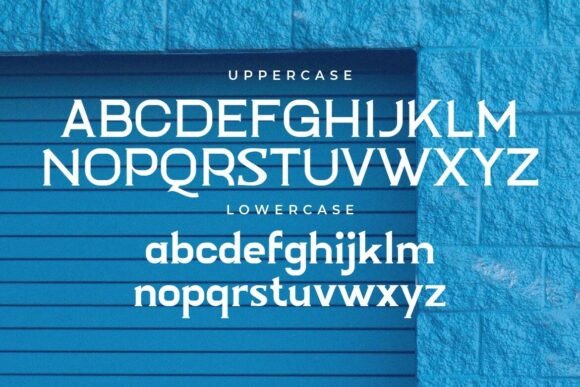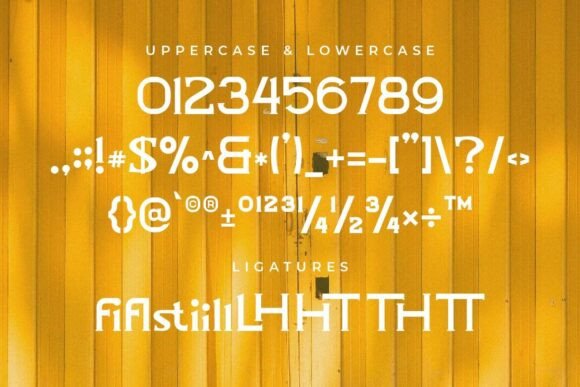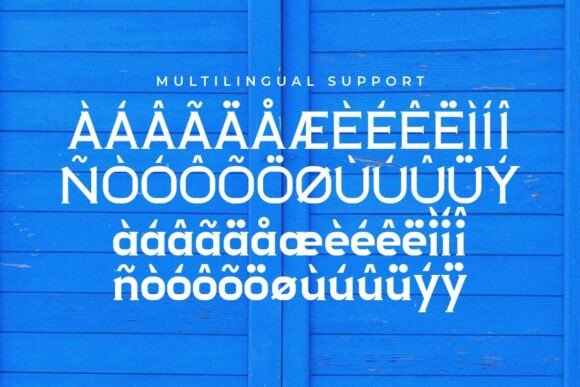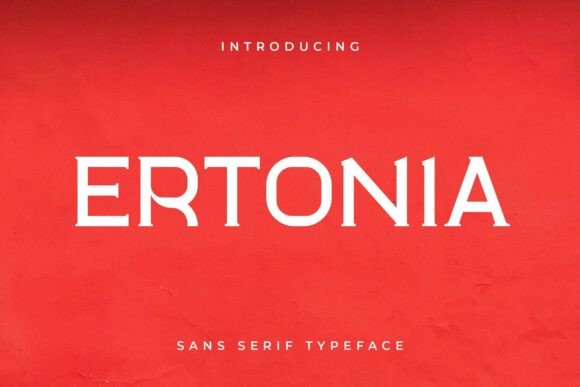
Introducing Ertonia Font: The Epitome of Modern Elegance and Versatility
In the realm of typography, few fonts manage to strike a balance between minimalist design and contemporary elegance. Ertonia Font is one such exceptional typeface that has garnered attention for its clean lines, versatile application, and geometric sophistication. Designed to cater to the needs of modern designers and crafters, Ertonia Font has emerged as a go-to choice for a wide array of projects, ranging from branding and editorial layouts to packaging, digital content, and UI/UX projects.
The Design Philosophy Behind Ertonia
At the heart of Ertonia Font’s appeal is its design philosophy, which marries simplicity with functionality. The font boasts balanced proportions, smooth curves, and a geometric structure that lends it a timeless appeal. This careful crafting ensures that Ertonia remains legible and aesthetically pleasing across various mediums and sizes, making it an incredibly versatile tool for designers.
Key Features of Ertonia Font
- Clean and Versatile: Ertonia’s sans serif design is clean and highly adaptable, suitable for a broad spectrum of applications.
- Balanced Proportions: The font’s well-balanced structure ensures harmony and readability, whether used in headings or body text.
- Smooth Curves: The incorporation of smooth curves adds a touch of elegance and softness, preventing the font from feeling too rigid or geometric.
- Geometric Structure: Its geometric foundation provides a modern and structured look, aligning well with contemporary design trends.
Applications of Ertonia Font
Ertonia’s adaptability and aesthetic appeal make it suitable for a myriad of design projects. Here are some of the key areas where Ertonia Font shines:
Branding
In branding, a font plays a crucial role in conveying a brand’s personality and values. Ertonia Font, with its clean and elegant appearance, helps create a strong and sophisticated brand image. Its versatility allows it to be used across various branding materials, from logos and business cards to billboards and merchandise, ensuring consistency and recognition.
Editorial Layouts
For editorial projects such as magazines, newspapers, and books, readability and style are paramount. Ertonia’s balanced design and smooth curves make it an excellent choice for body text, while its geometric structure ensures that headings stand out, creating a visually appealing hierarchy of information.
Packaging
Packaging design requires a font that can stand out on shelves and convey the brand’s message quickly. Ertonia’s contemporary elegance and legibility make it perfect for product packaging, helping brands to attract attention and communicate effectively with consumers.
Digital Content and UI/UX Projects
In the digital realm, font choice is critical for user experience. Ertonia’s clean lines and geometric structure ensure that it renders well on digital screens, making it suitable for websites, mobile apps, and digital marketing materials. Its readability and aesthetic appeal enhance user engagement, contributing to a positive user experience.
Ertonia Font stands out in the world of typography for its unique blend of minimalist design and contemporary elegance. Its versatility, legibility, and aesthetic appeal make it an invaluable asset for designers and crafters working on a wide range of projects. Whether you’re aiming to create a strong brand identity, design an engaging editorial layout, craft compelling packaging, or build an intuitive digital interface, Ertonia Font offers the perfect combination of style and functionality.
As design trends continue to evolve, fonts like Ertonia will play a pivotal role in shaping the visual communication of the future. By incorporating Ertonia into your design toolkit, you’re not just choosing a font; you’re embracing a design philosophy that values clarity, elegance, and versatility.